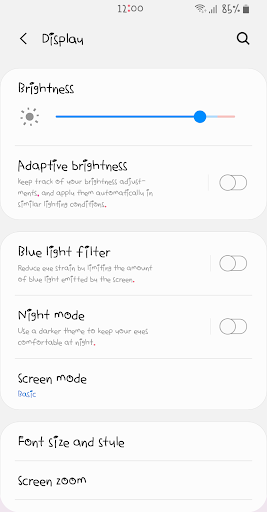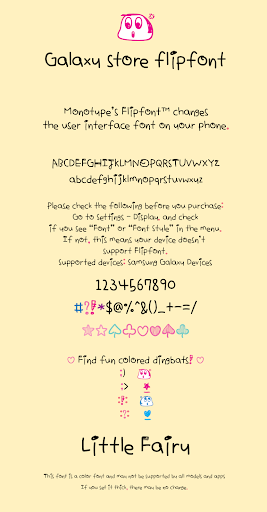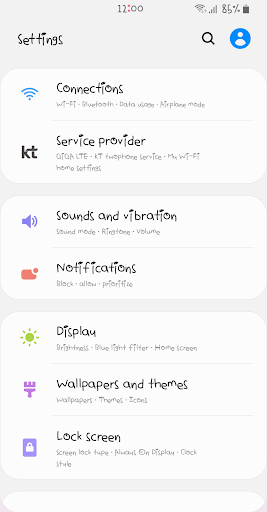
AhLittleFairy
This font has a rhythm with an interesting line height, and it's a nice handwritten font with the special characteristics of each character.